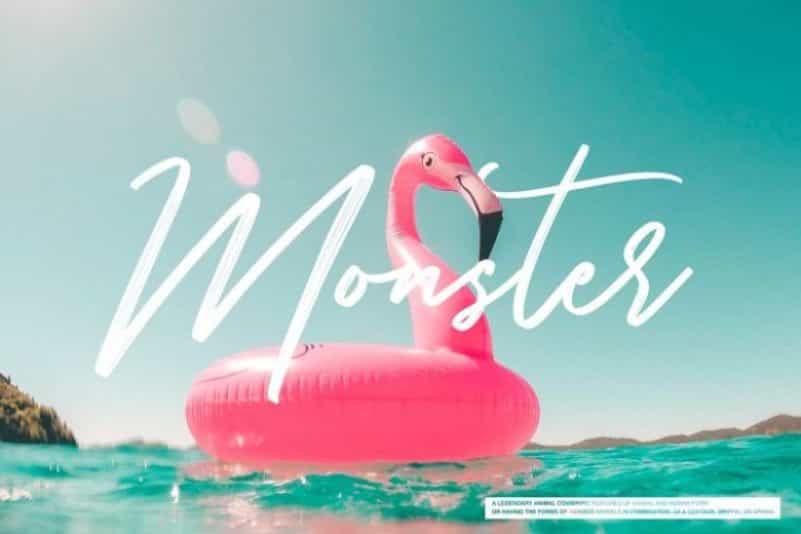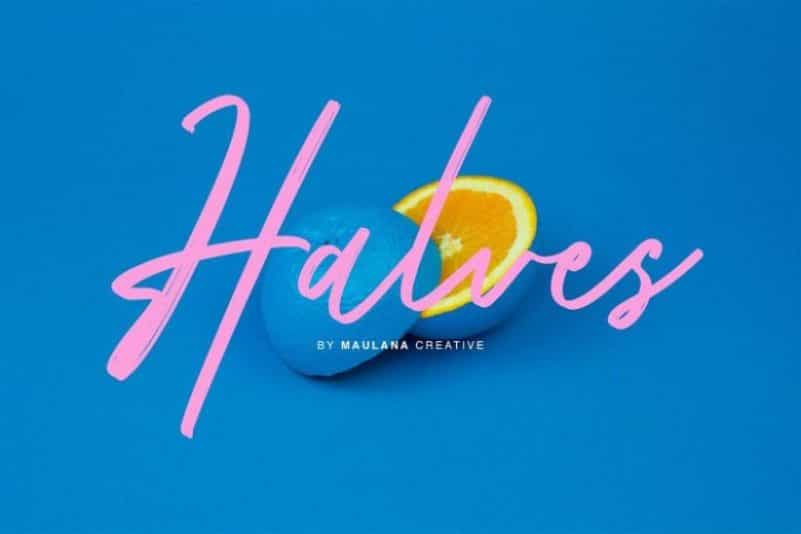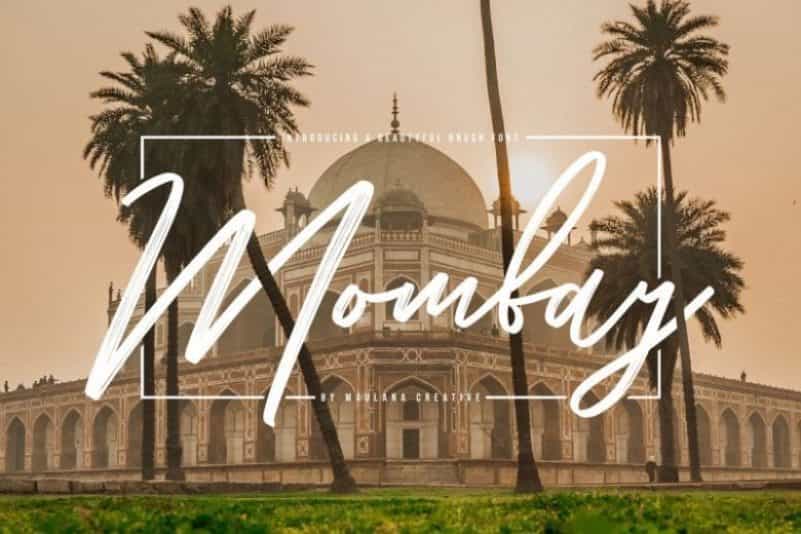
Introducing Mombay Font. The software allows the user to give the designs an authentic brush handcrafted look. “Mombay Brush” is ideal for stationery, logos, and any other products that require a professional and clean look. For instance, apparels, invitations, books tittle, stationery designs, quotes, branding and logos, greeting cards, t-shirts, packaging designs, posters and more.